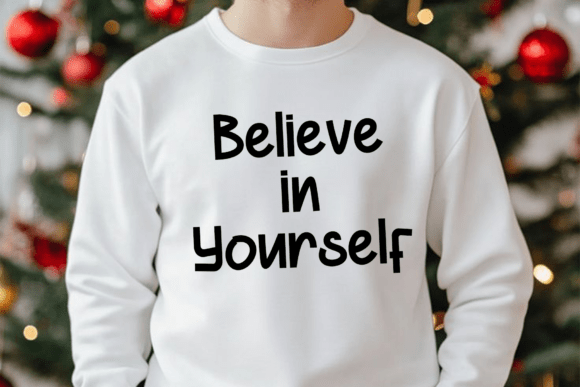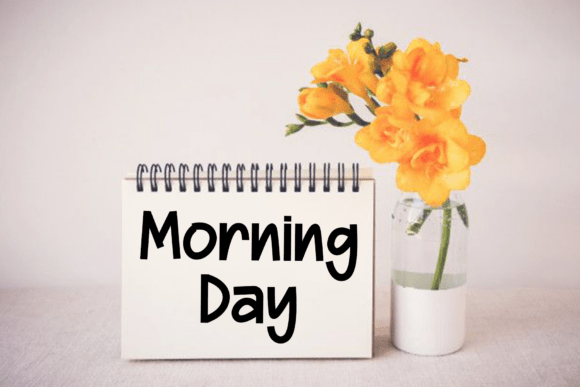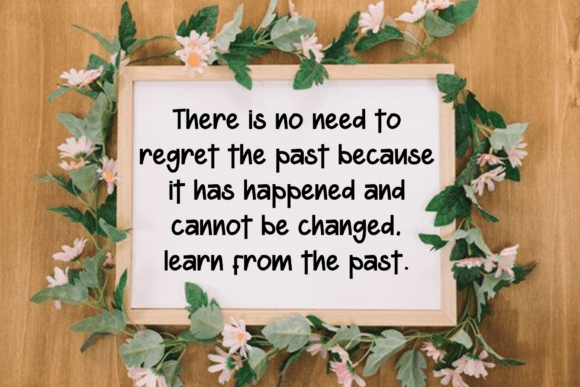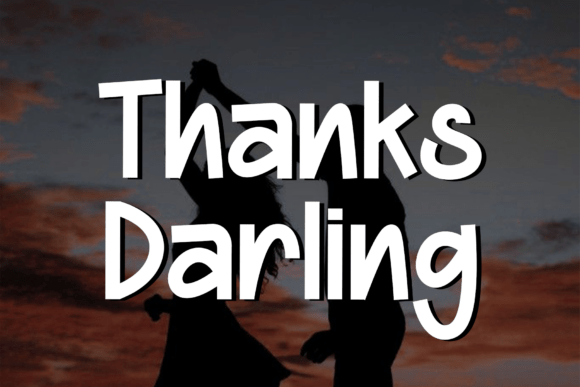
The Amour Dancing Font: A Fresh and Friendly Touch for Your Designs
Here’s what I love about Amour Dancing:
- ✨ Modern simplicity: Amour Dancing strikes the perfect balance between modern clean lines and a playful vibe.
- ✅ Readability: The font is incredibly clear, even at smaller sizes, making it perfect for body text and headings.
- 💕 Versatility: It works beautifully for posters, branding, packaging, and social media graphics.
- 🎉 Fresh and friendly touch: Amour Dancing adds a unique charm to any project, making it stand out from more traditional fonts.
And, like any font, it’s not without its quirks:
- 🤔 Limited use in formal contexts: Amour Dancing’s playful nature makes it less suitable for very formal or traditional designs.
- ⚠️ Some letterform variations: While the font has a wide range of alternates, some users might find the selection a bit limited for very specific design needs.
The Story Behind Amour Dancing
Amour Dancing was designed with the intention of capturing the essence of modern simplicity and playful elegance. The designer aimed to create a font that would be both clean and charming, suitable for a wide range of creative projects. The result is a versatile font that brings a fresh and friendly touch to any design.
| Font Name | Amour Dancing Font |
| What makes Amour Dancing unique? | Amour Dancing stands out for its blend of modern simplicity and playful elegance, making it perfect for designs that need a fresh and friendly touch. |
| Is Amour Dancing suitable for body text? | While Amour Dancing is primarily a display font, its readability makes it suitable for short body text sections. For longer texts, consider pairing it with a clean sans-serif font. |
| Does Amour Dancing support OpenType features? | Yes, Amour Dancing supports OpenType features such as ligatures and stylistic alternates, allowing for greater creative flexibility in your designs. |